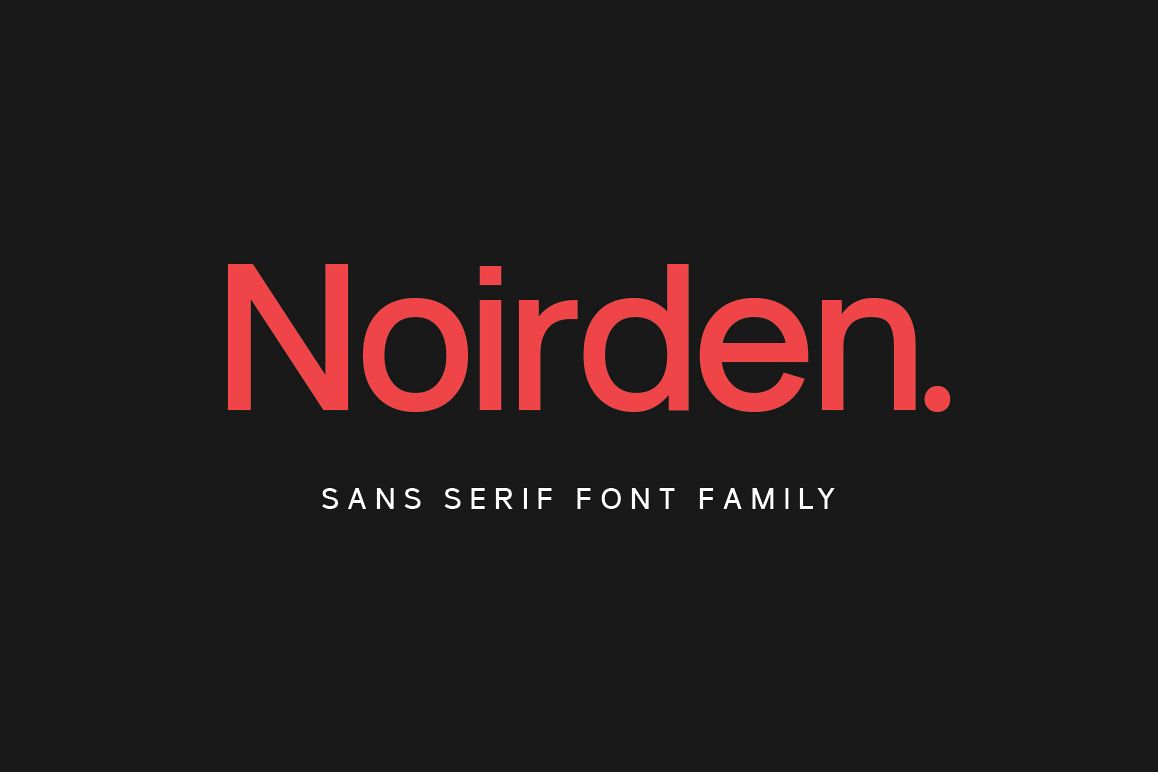
Noirden is a bold sans serif with Bold Oblique, Bold, Extra Light Oblique, Extra Light, Light Oblique, Light, Regular Oblique, Regular, Semi Bold Oblique, Semi Bold, Thin Oblique & Thin. Noirden Sans Font is perfectly suited to branding, logos, magazines, films, website, headlines, titles, captions, games, apps, posters, t-shirts and more.This font available: